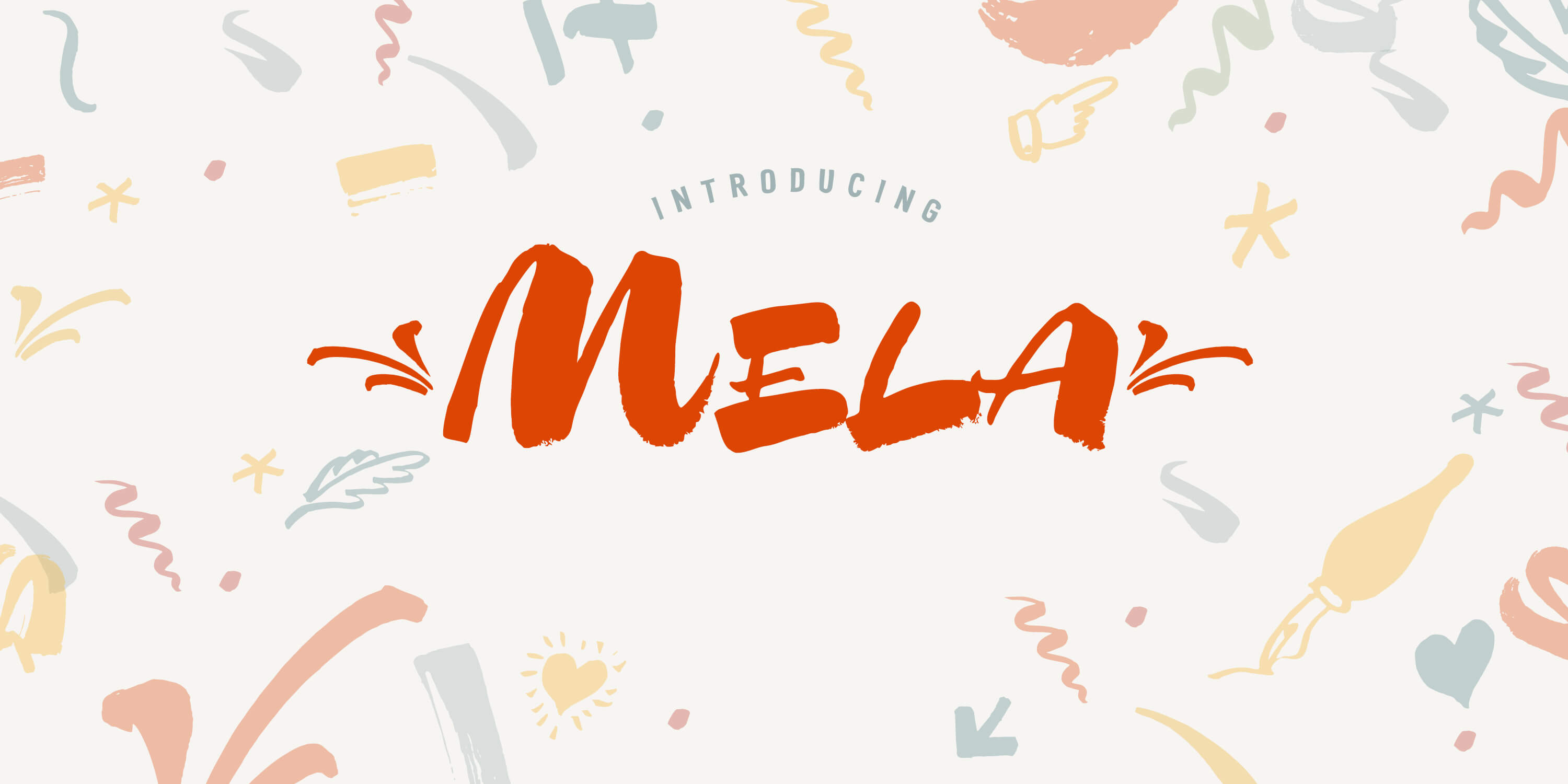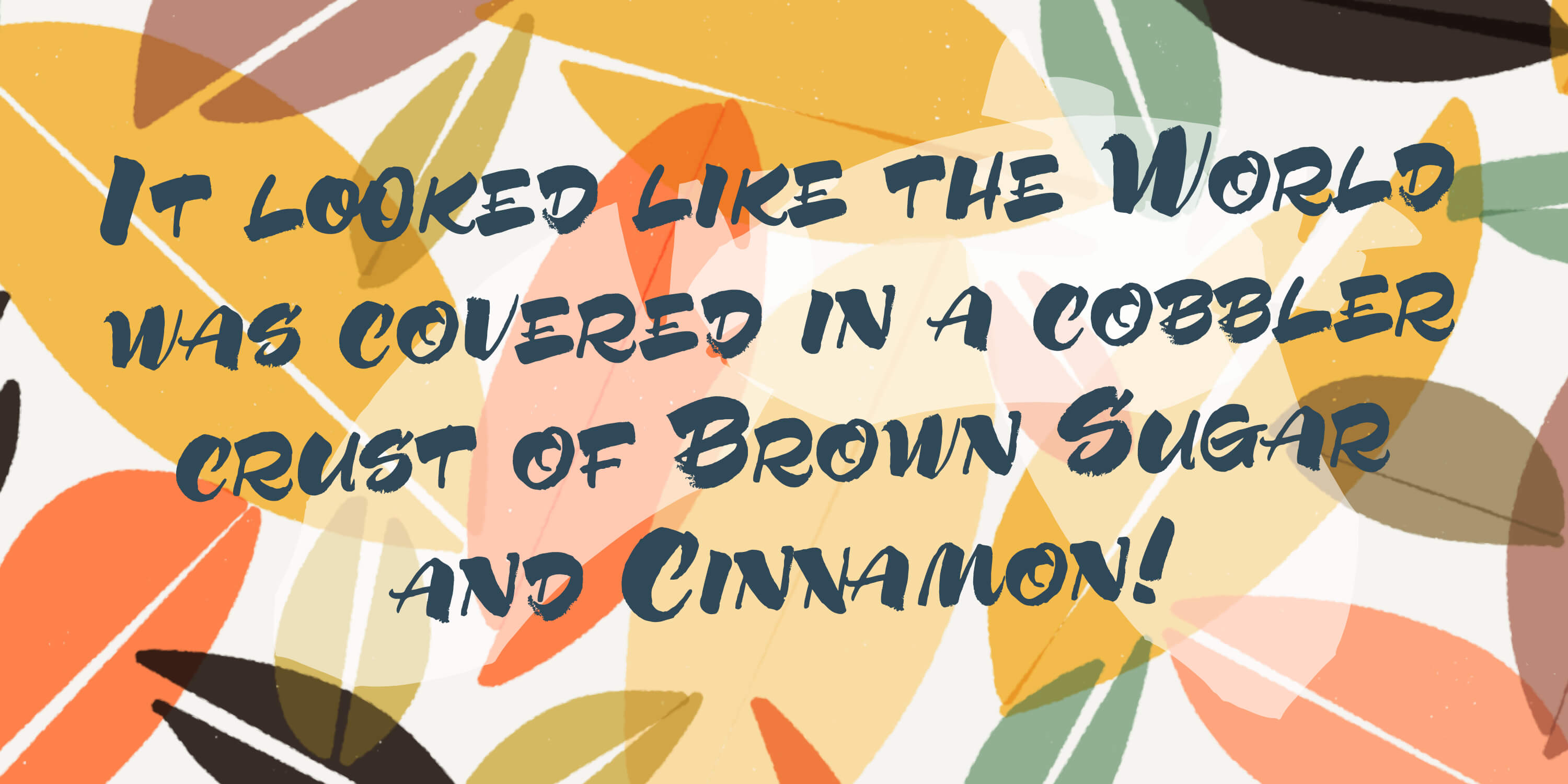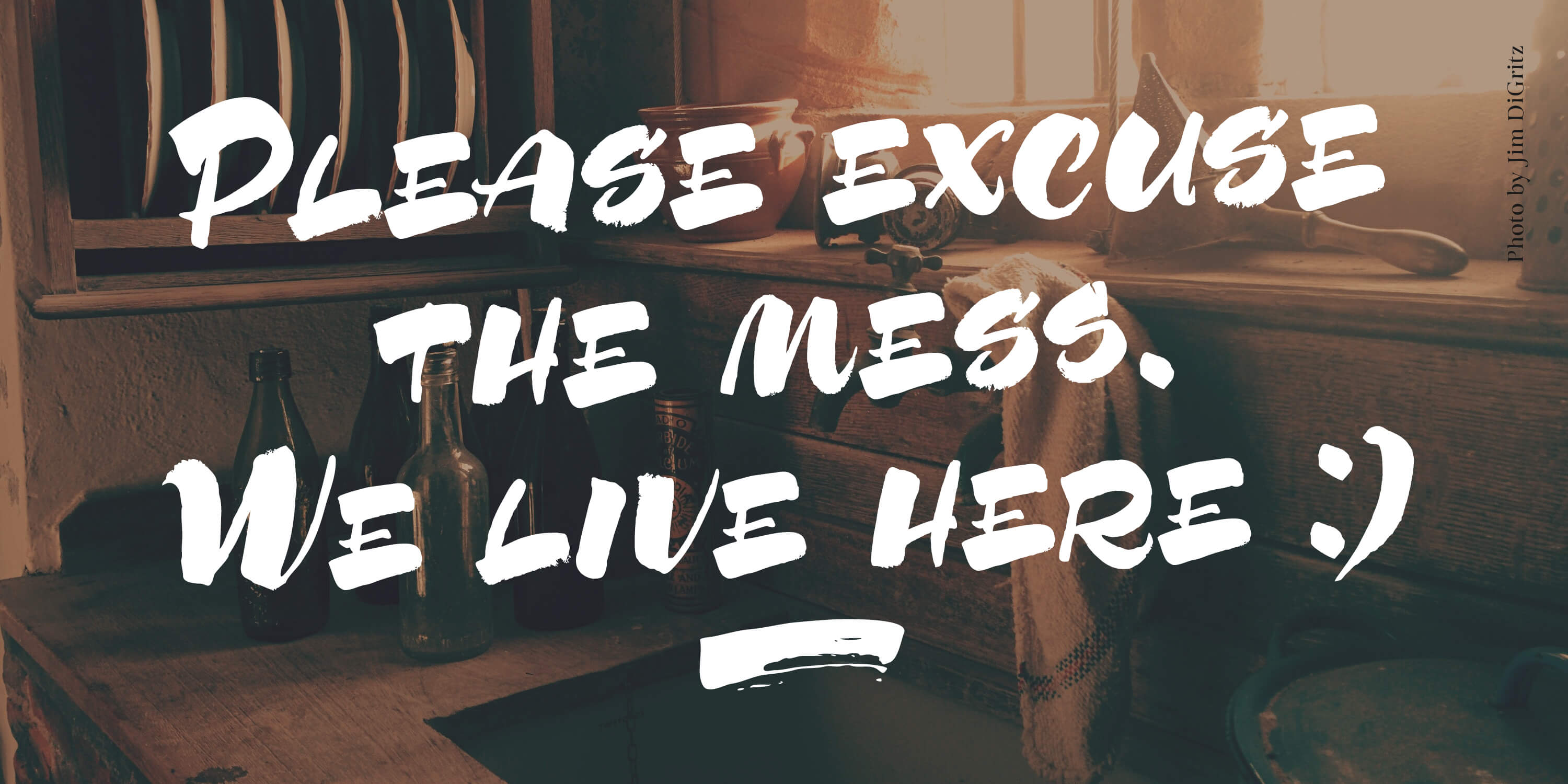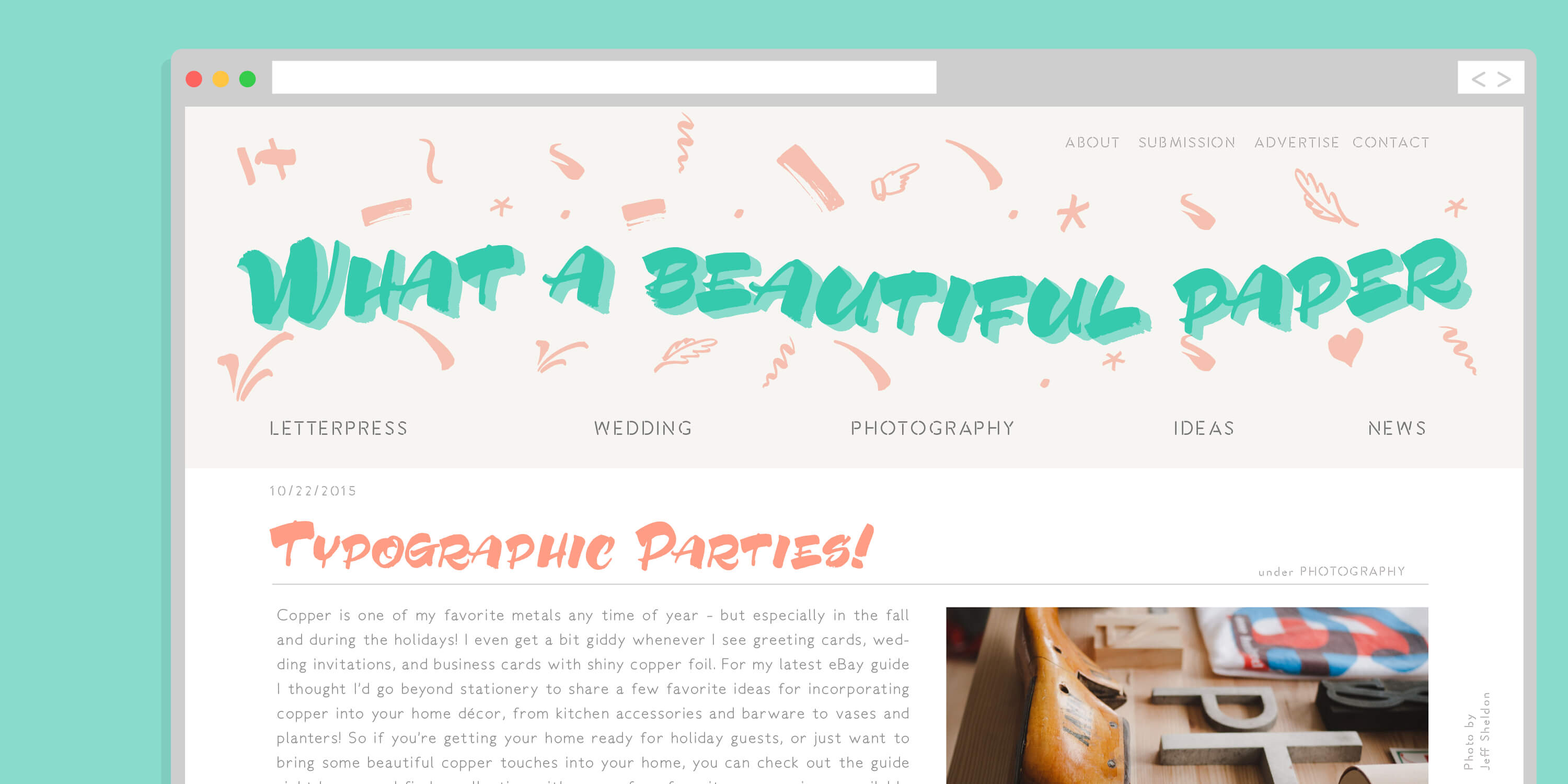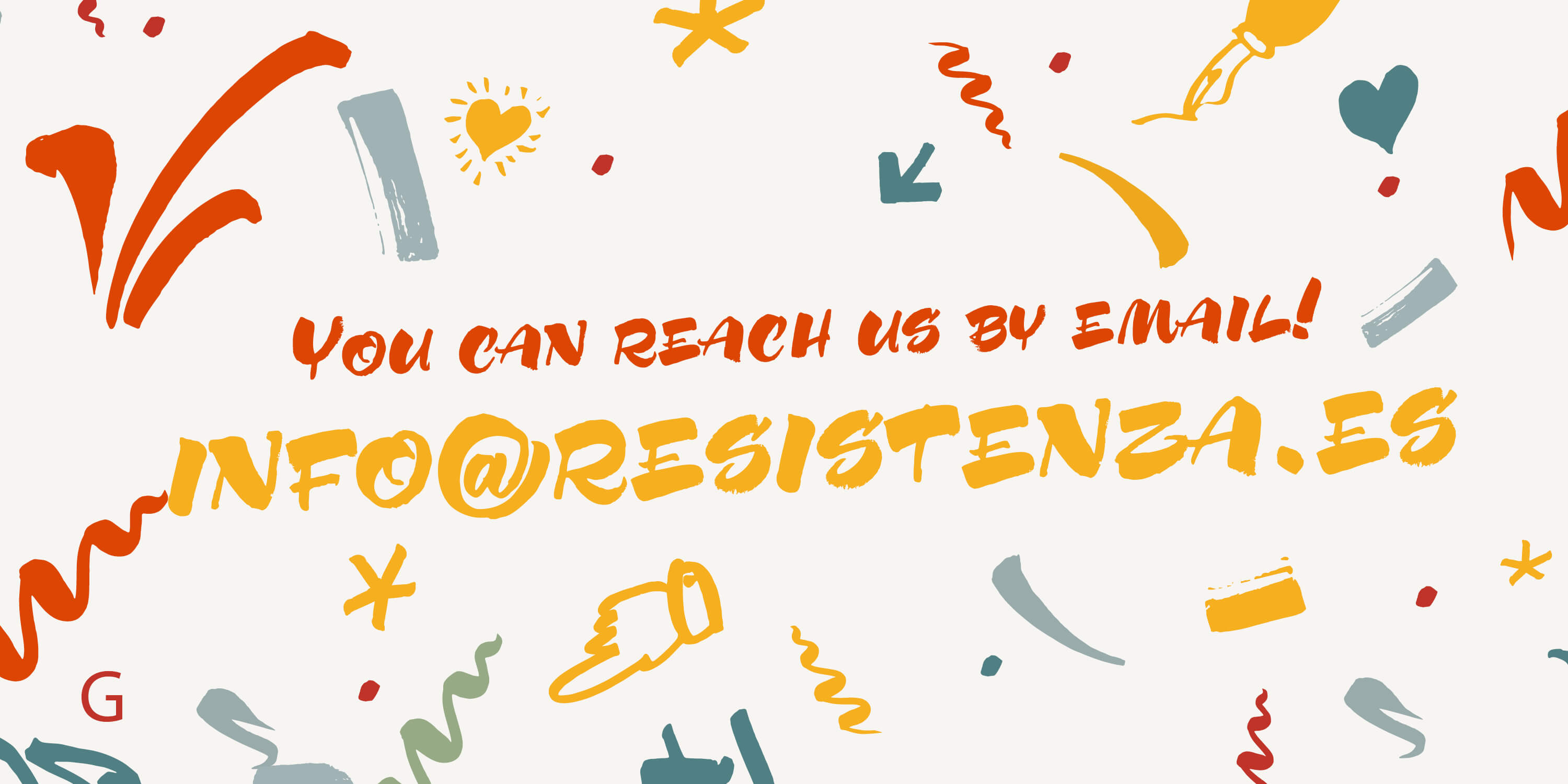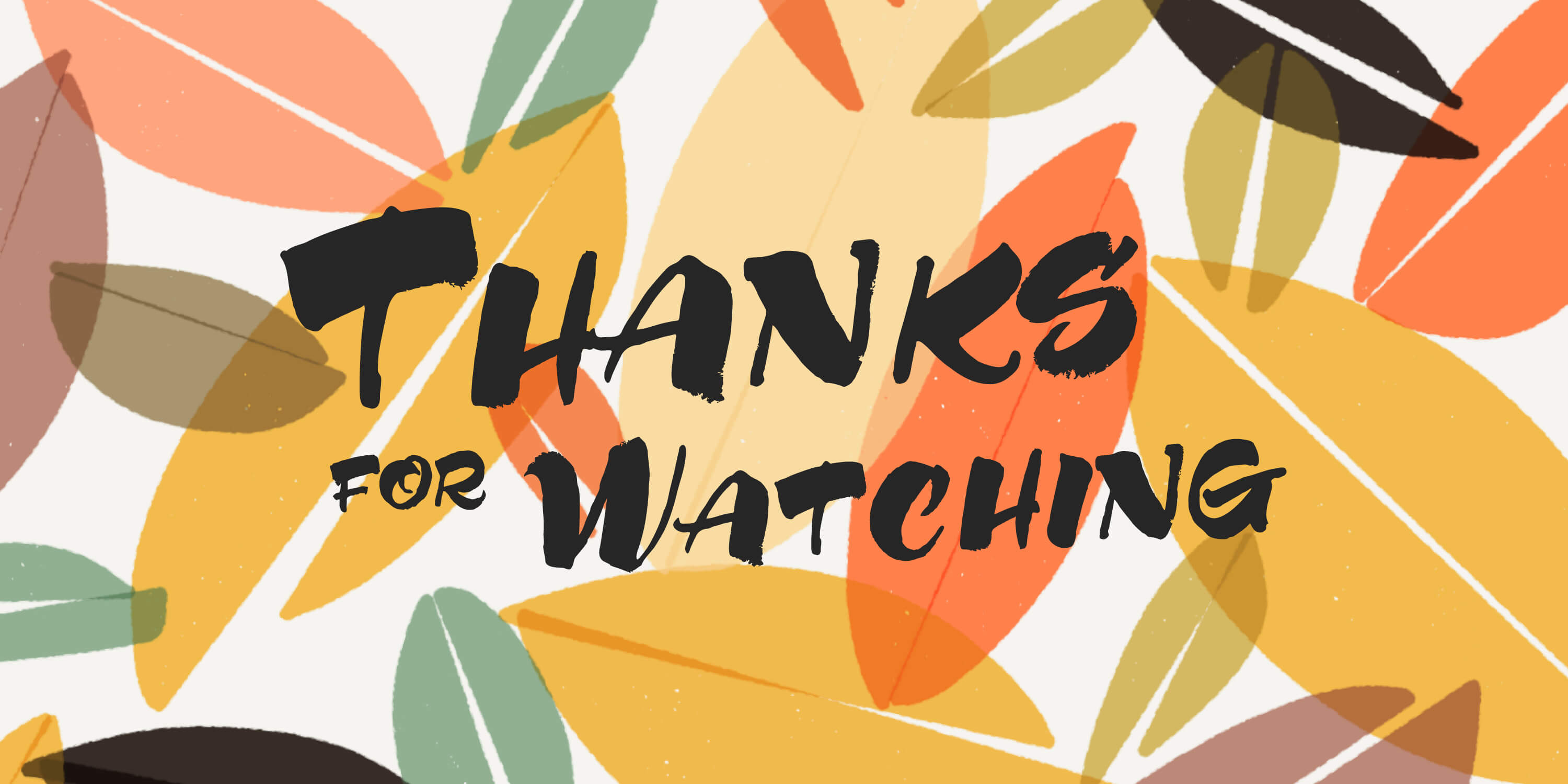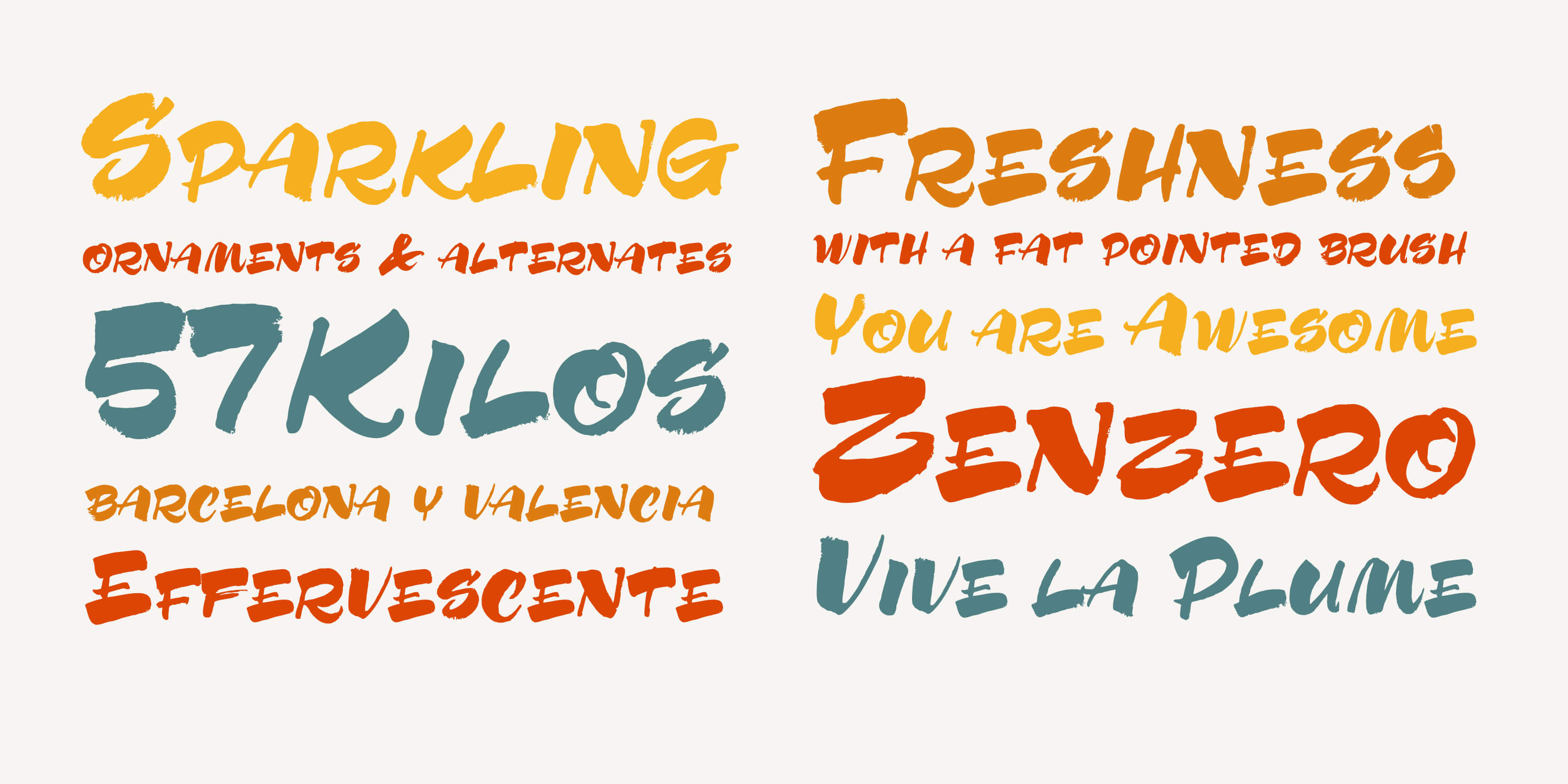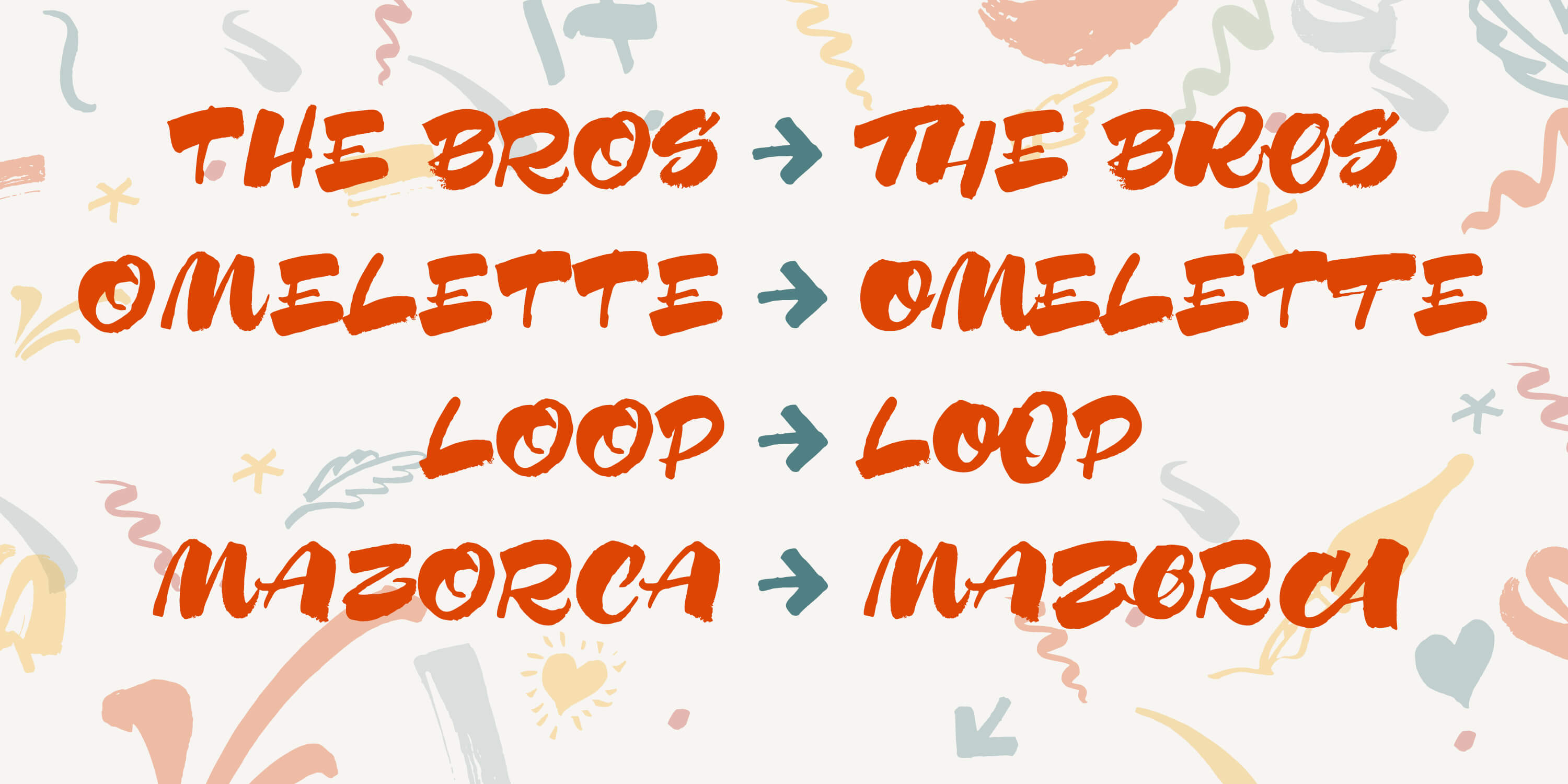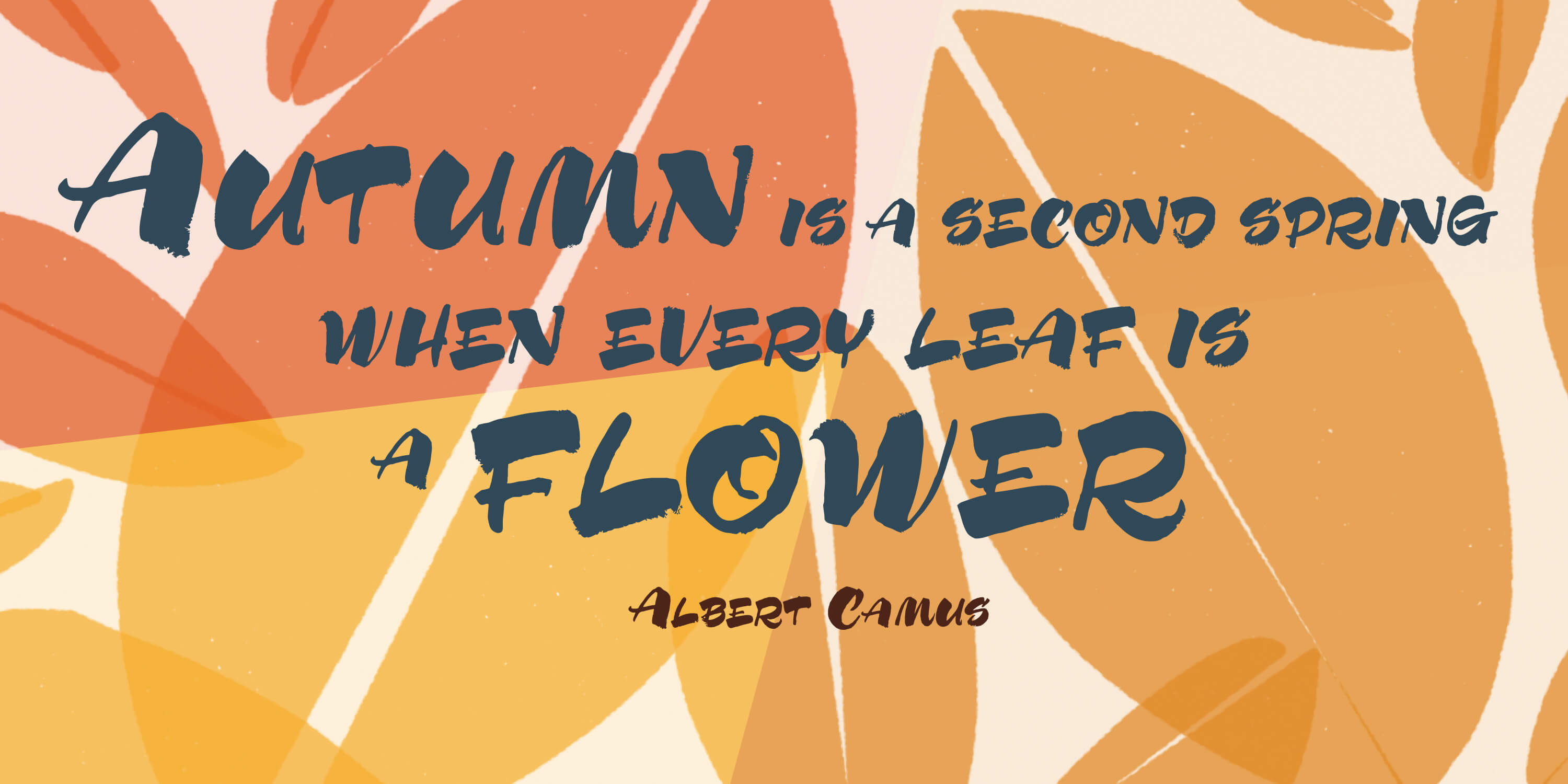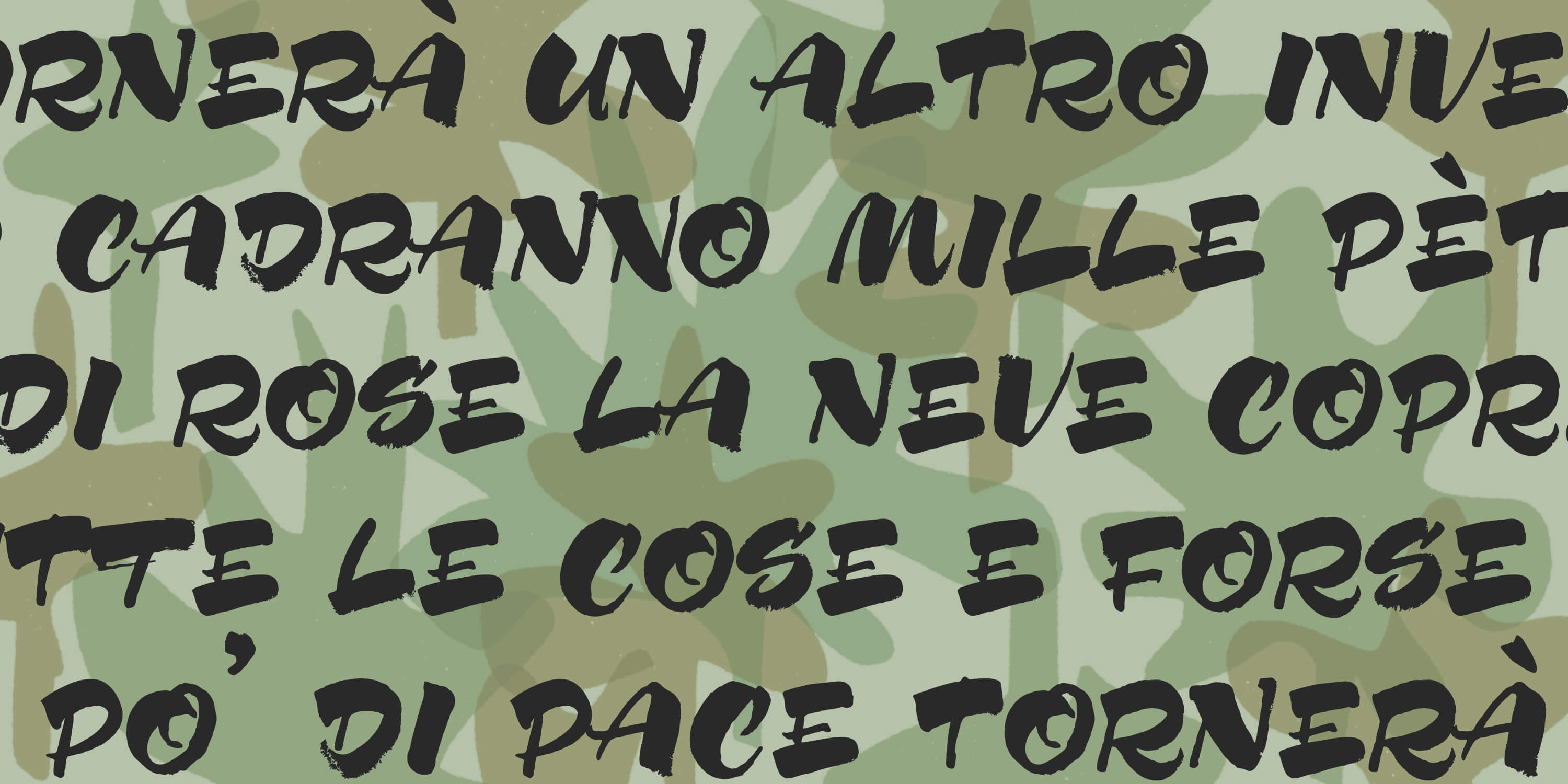
Mela Pro
Brush Font
Mela
Designed by Resistenza Type FoundryMela has been created with a pointed brush and walnut ink using thick brushstrokes. The original idea was to make a kind of urban lettering with a fat brush but with a more refined and elegant touch. Something new - light and bold together. The brush gives the illusion of a fat-tipped marker.
This handmade typeface with lot of contrast brings together the beauty of the calligraphic shapes and strokes with the esthetics of a modern urban style. It creates a contemporary carefree feeling adding a perfect modern touch to your layout.
The possibilities for customized layouts are limitless, using the opentype ligatures and alternates to you make Mela your own.
Mela Pro contains 473 glyphs: alternates, ligatures, icons, ornaments, and much more.
Mela regular is limited to letters, figures and punctuation.
Mela & Mela Pro are perfect for headlines and short texts. Use it for magazines, packaging, advertising, branding, posters, editorials, TV, movies and websites to give to your projects the unmistakable human touch of beautiful handwritten letters.